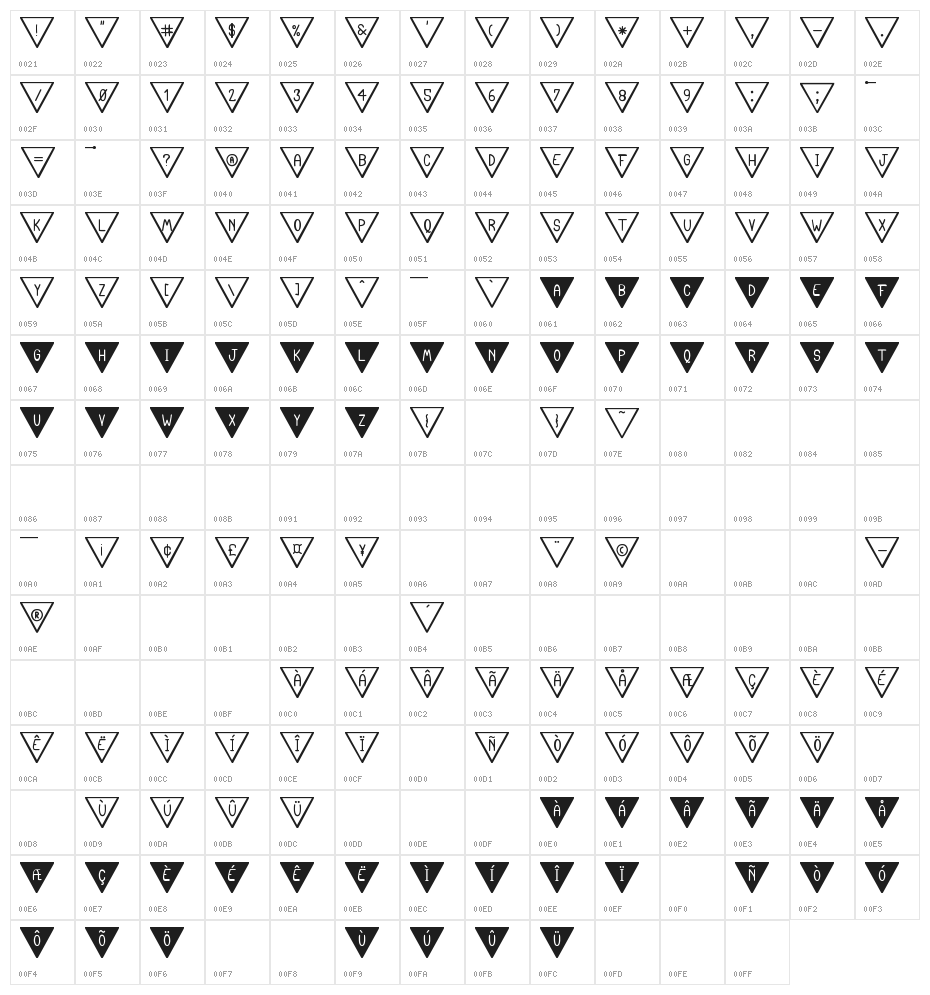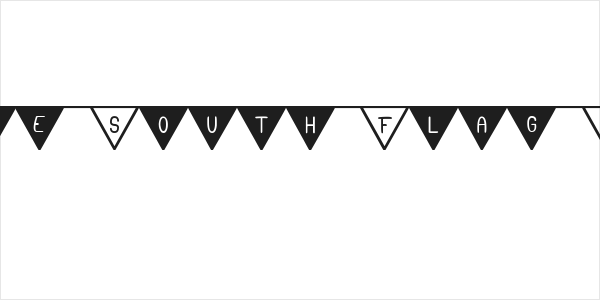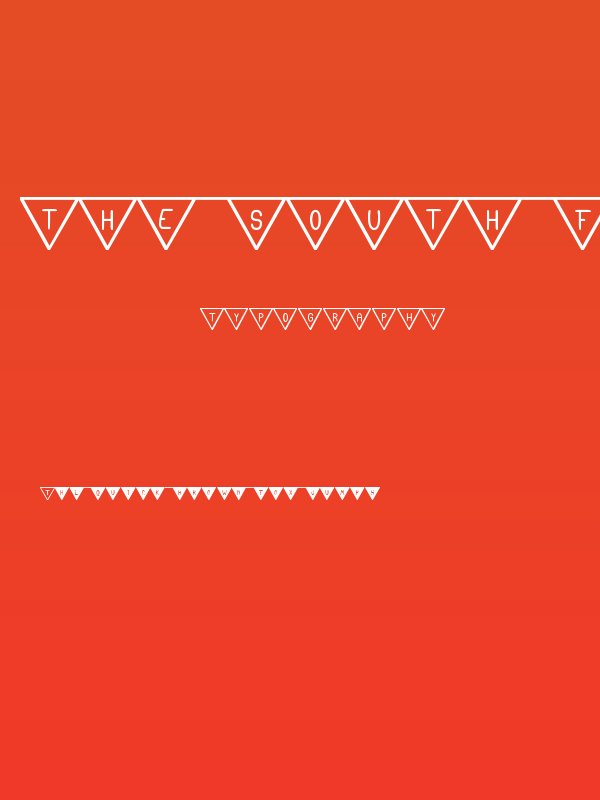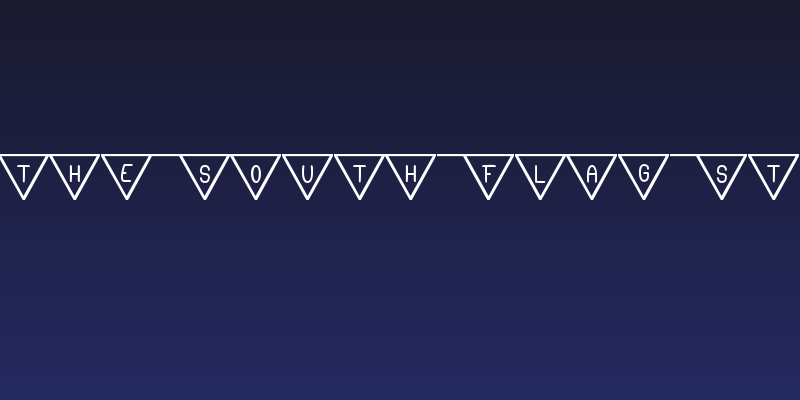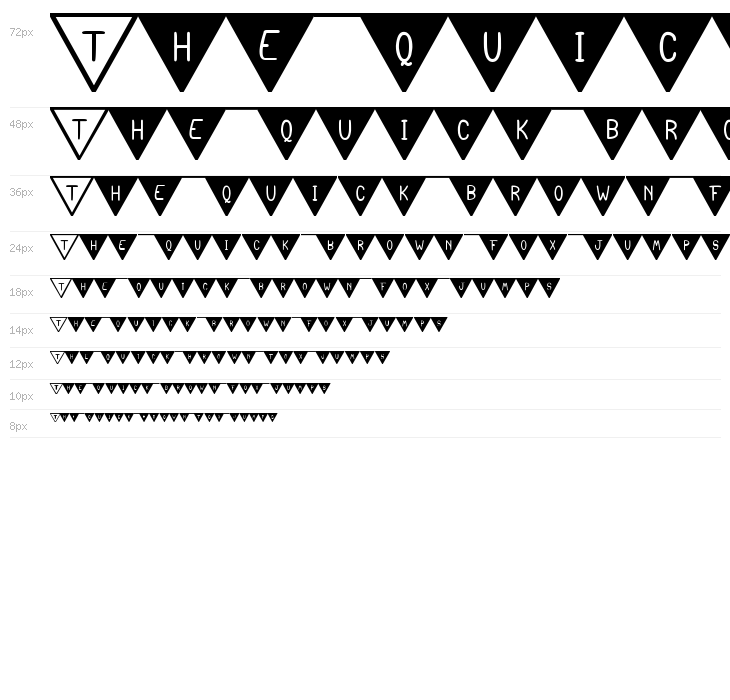
The South Flag St Font
The South Flag St Description
This unique font features characters enclosed within triangular flag shapes, creating a distinctive and playful appearance. The uppercase letters are displayed in a bold, sans-serif style, while the numbers and special characters maintain the same geometric flag design. The font's design is consistent across all characters, providing a cohesive look. The triangular flags add a decorative element, making the font suitable for creative and festive projects. The contrast between the character strokes and the flag outlines is medium, ensuring readability while maintaining the decorative aspect.
| Proposed Projects | This font is perfect for party invitations, banners, children's event posters, and any project requiring a fun and decorative touch. |